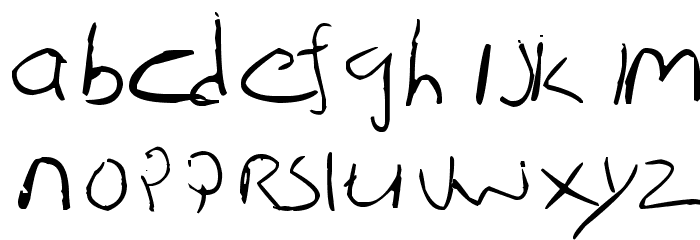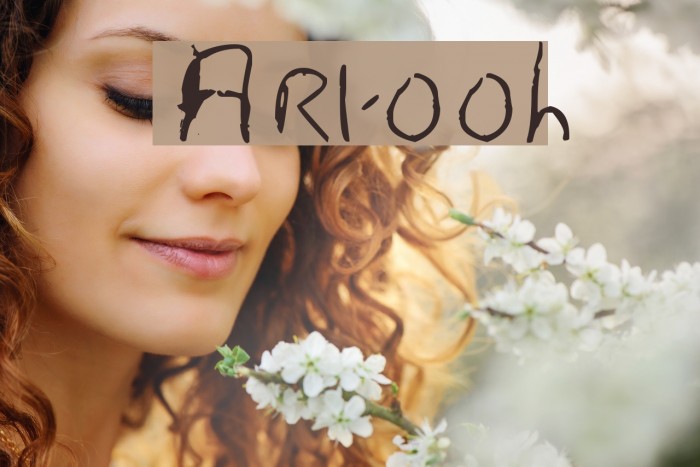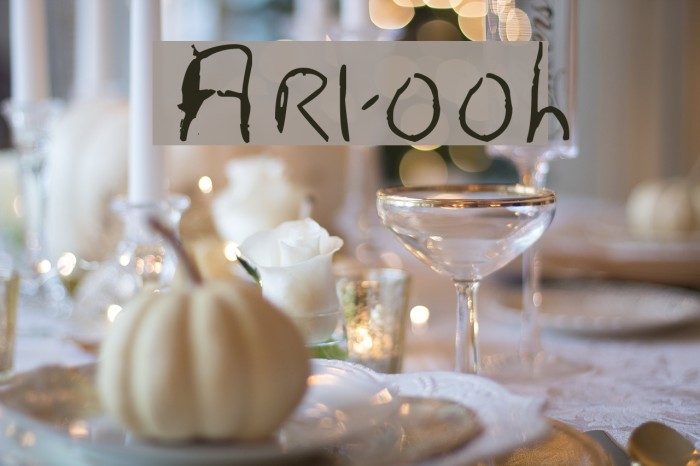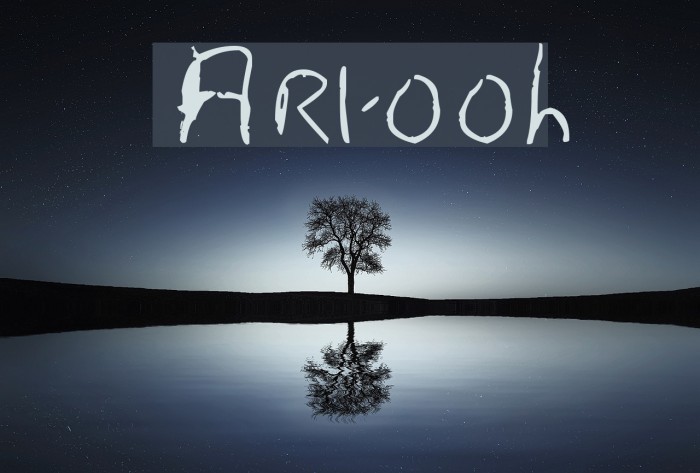
Artooh Font
This font features a dynamic and artistic handwritten style, characterized by its fluid and expressive strokes. The uppercase letters exhibit a bold and slightly irregular form, adding a sense of movement and individuality to each character. The lowercase letters maintain this fluidity, with some characters extending below the baseline, enhancing the handwritten feel. The numerals are consistent with the overall style, offering a playful yet legible appearance. Special characters are creatively integrated, maintaining the artistic theme. The overall impression is one of creativity and spontaneity, making it suitable for projects that require a personal touch.
A dynamic and artistic handwritten font with fluid, expressive strokes.
- Proposed Projects: Ideal for creative projects such as invitations, greeting cards, artistic posters, and branding that seeks a personal and unique touch.
- Overall Style: Artistic
- Use Case: Logos, Invitations, Artistic Posters